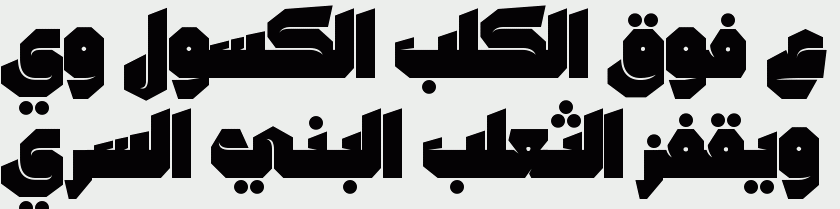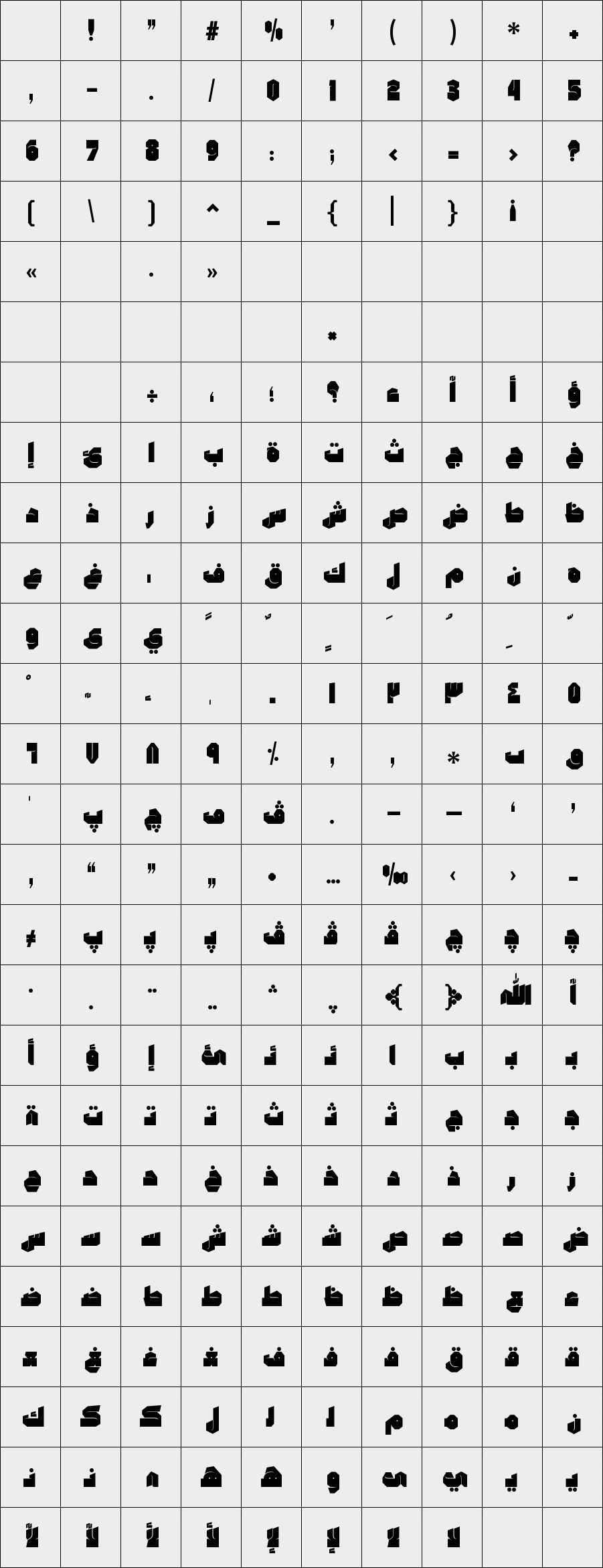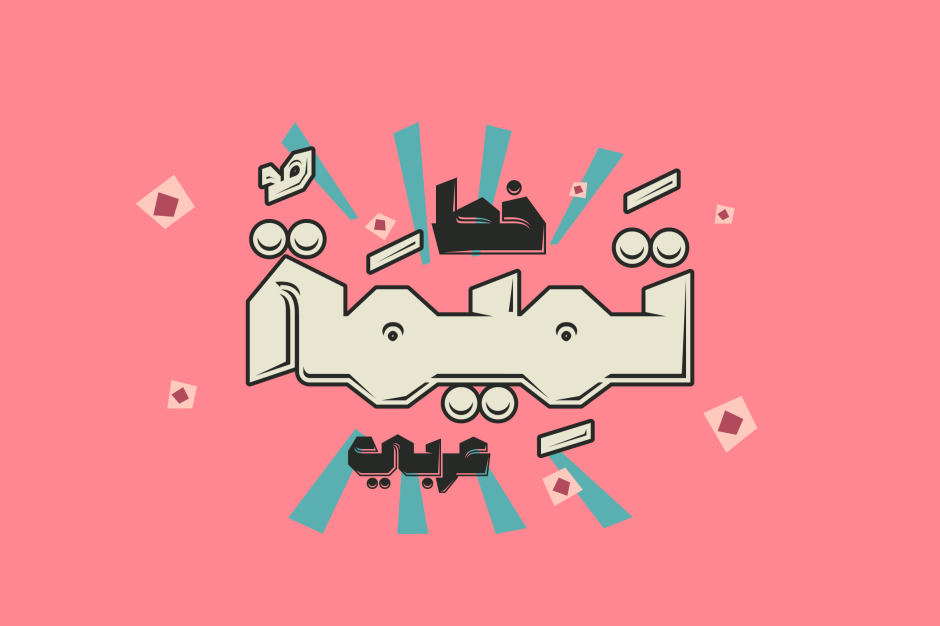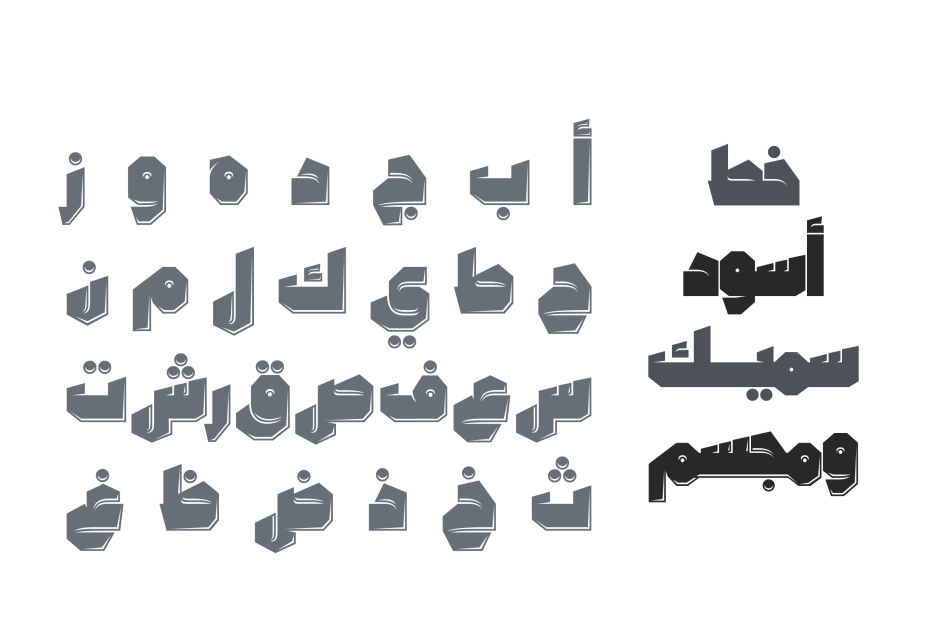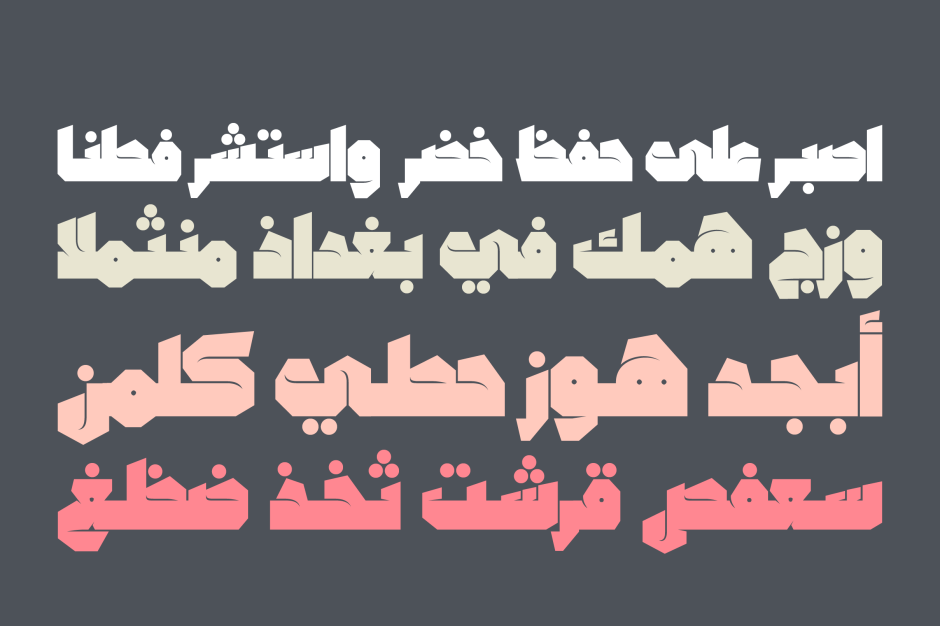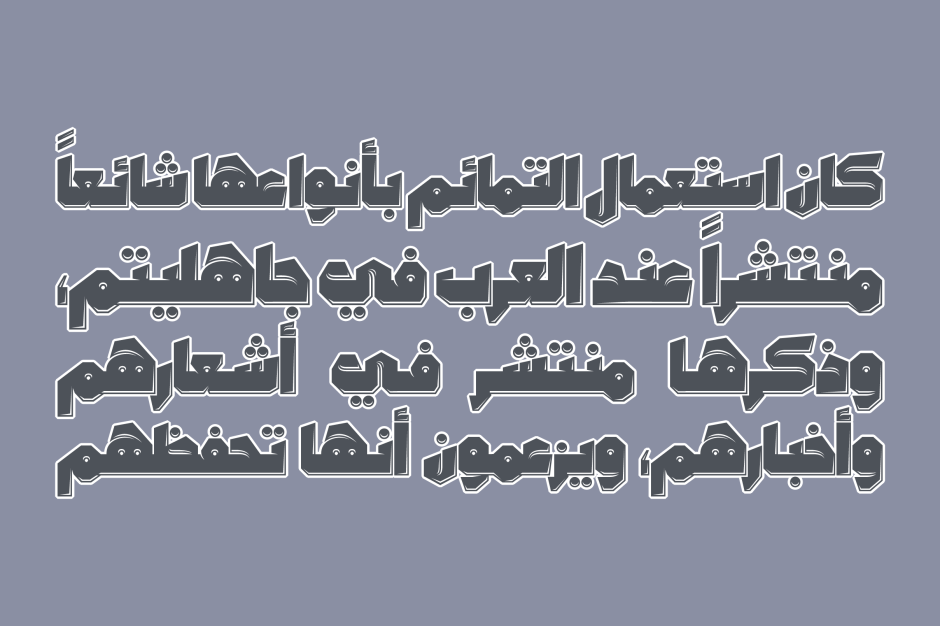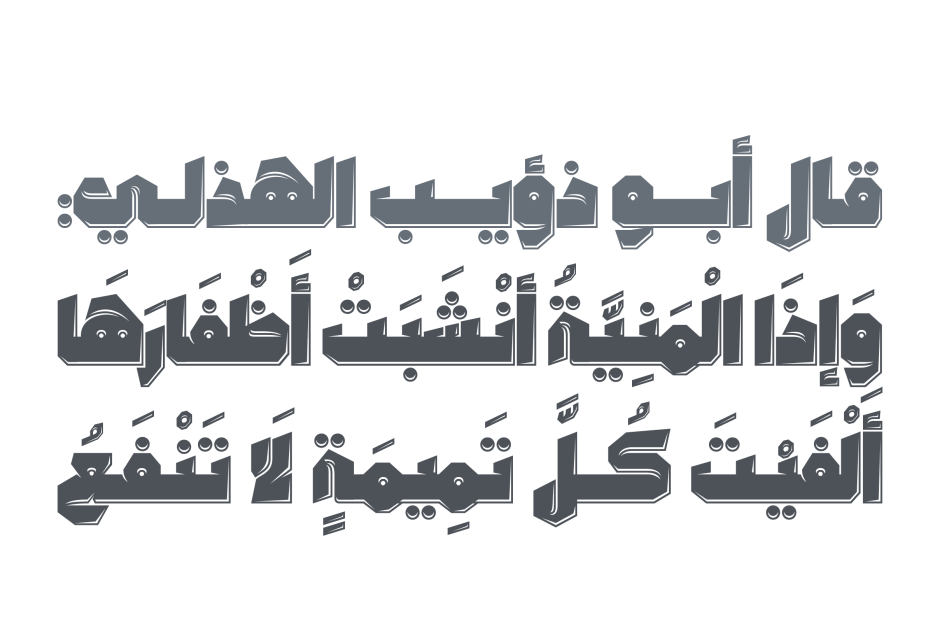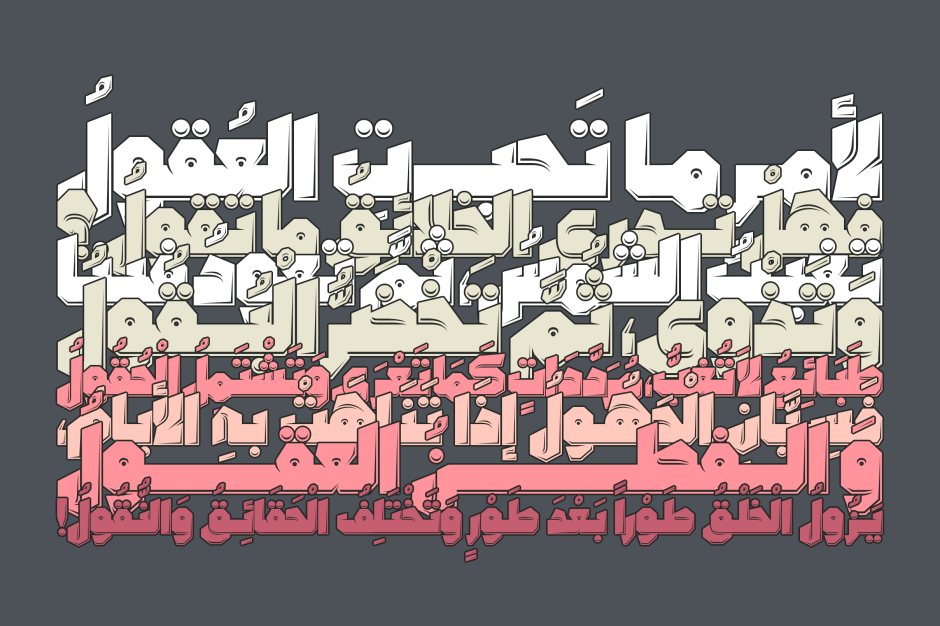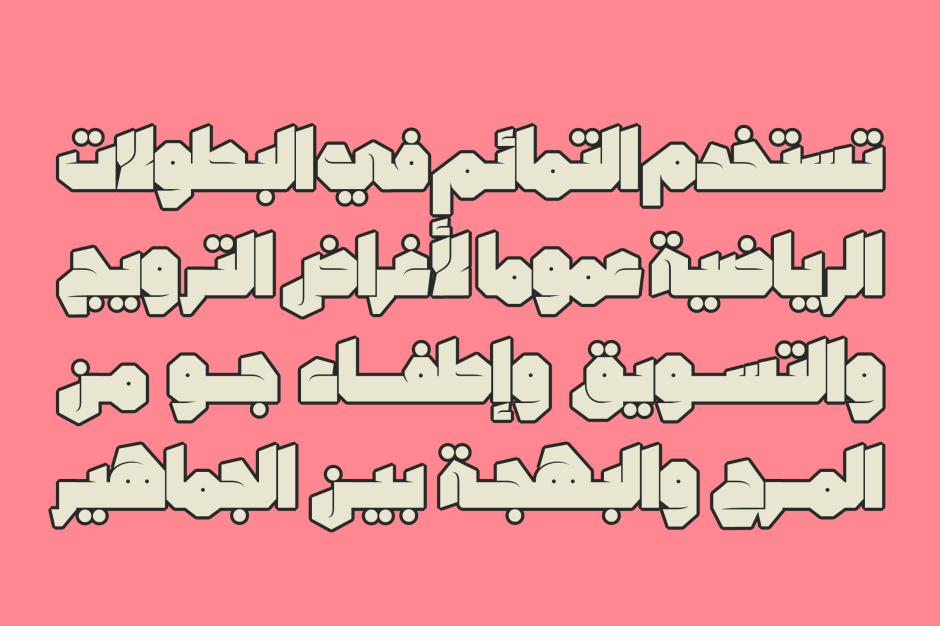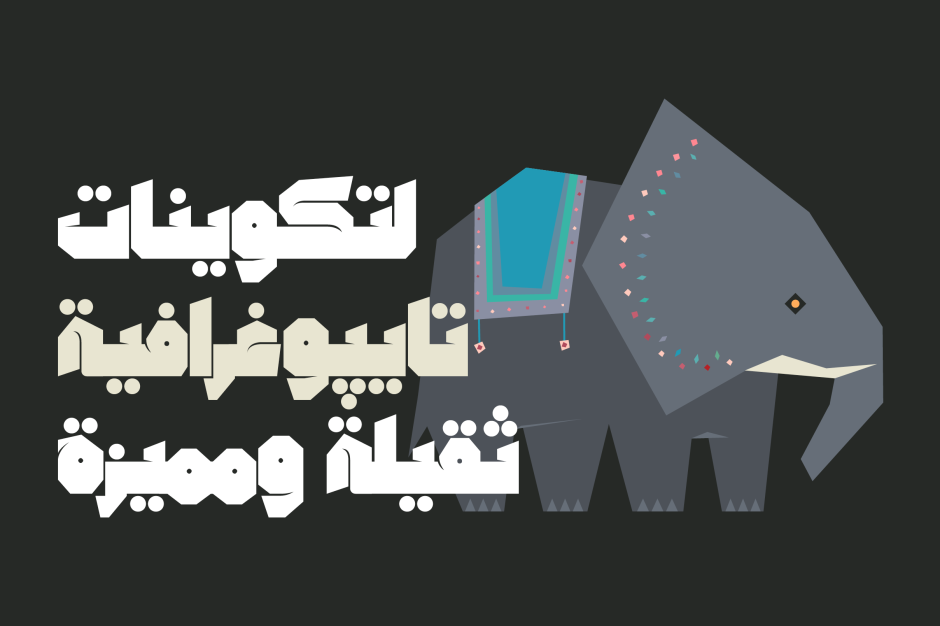
Tamema
/ Tamema Black
The word Tamema is the Arabic for Mascot or Amulet. Tamema is an Arabic display font with a heavy structure that suits creative titles. Tamema comes in two styles (Black and Embossed), and it supports web, print and mobile applications.